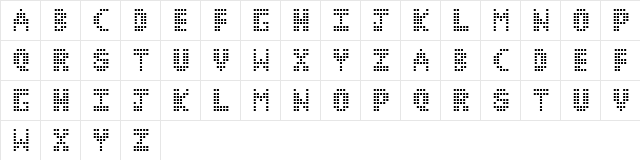
Corrupt Pixel Regular
Design Context for Corrupt Pixel Typeface
Corrupt Pixel is rooted in pixel-grid construction, making it a natural fit for game UI, retro computing aesthetics, and digital nostalgia projects.
A natural choice for retro game titles, chiptune music branding, 8-bit UI, and digital nostalgia projects.
Pro Tip: Pair Corrupt Pixel with flat colour palettes and simple geometric UI elements to reinforce its digital aesthetic.